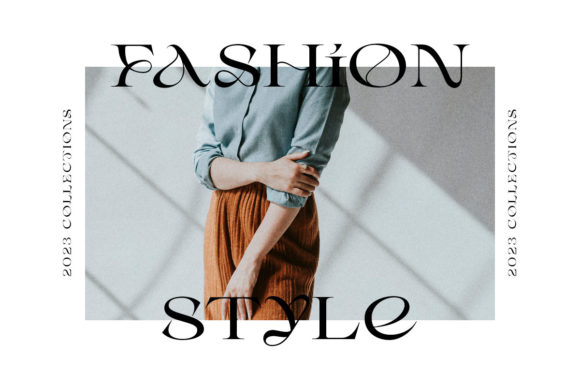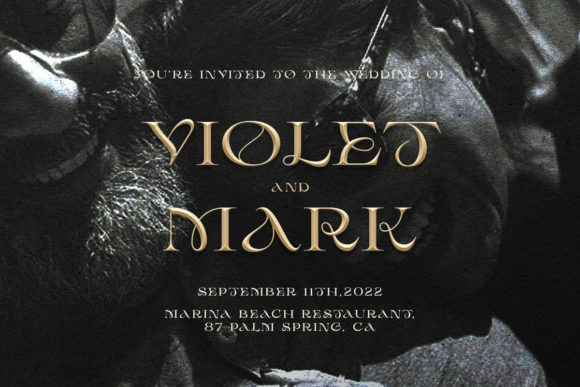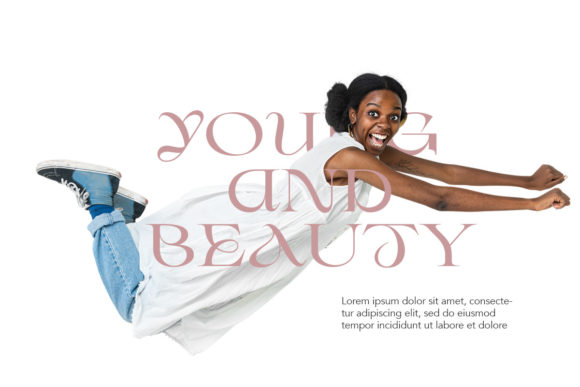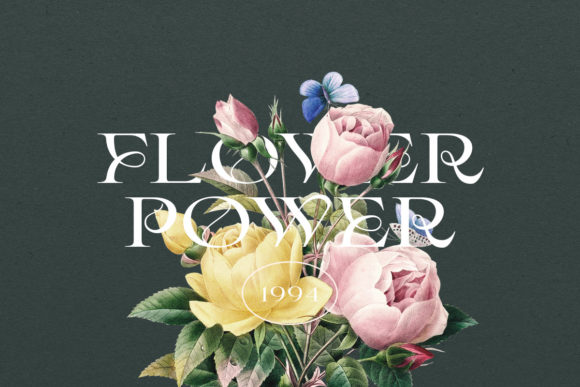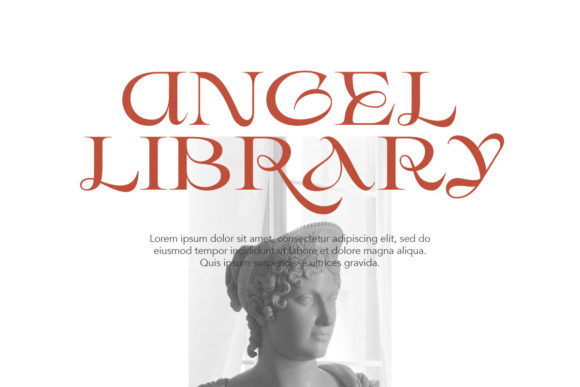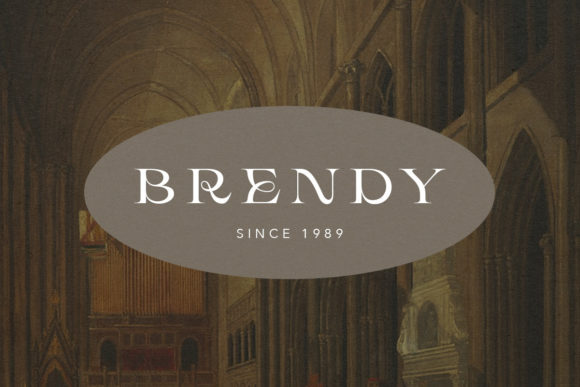
Introducing Desira Font: The Ultimate Choice for Eye-Catching Designs
In the world of typography, fonts play a crucial role in making or breaking a design. A perfect font can elevate your brand’s visual identity, making it more recognizable and memorable. If you’re a designer, craftsperson, or simply someone who loves to dabble in creative projects, you’re in luck! Today, we’re excited to introduce you to Desira Font, a wavy and trendy serif font that’s sure to take your designs to the next level.
What is Desira Font?
Desira is a beautifully crafted serif font that boasts a unique, wavy design. Its distinctive style makes it an excellent choice for creating eye-catching logos, branding materials, and quotes. What sets Desira apart from other fonts is its attention to detail – every letter has a unique and beautiful touch that will make your design come alive!
Key Features of Desira Font
• Wavy and Trendy Design: Desira’s wavy lines give it a modern and trendy feel that’s perfect for designs that require a bit of flair.
• Serif Font: The serif style of Desira adds a touch of sophistication and elegance, making it suitable for a wide range of design projects.
• Unique Letterforms: Each letter in the Desira font has been carefully crafted to have its own unique character, ensuring that your designs stand out from the crowd.
• Ease of Use: Desira is designed to be user-friendly, making it easy to incorporate into your projects, whether you’re a seasoned designer or just starting out.
Whether you’re a professional designer or a crafty DIY enthusiast, Desira Font is an excellent addition to your toolkit. Here are just a few ways you can use Desira to elevate your designs:
• Logo Design: Create memorable and impactful logos that capture the essence of your brand.
• Branding Materials: Use Desira to create consistent and recognizable branding across all your materials, from business cards to billboards.
• Quote and Social Media Graphics: Add a touch of personality to your quotes and social media graphics, making them more engaging and shareable.
• Crafting Projects: Add a professional touch to your crafting projects, such as handmade cards, invitations, and more.
Why Choose Desira Font?
With so many fonts available, why choose Desira? Here are a few compelling reasons:
• Unique Style: Desira’s wavy serif design is unlike any other font on the market, ensuring your designs stand out.
• Versatility: From logos to social media graphics, Desira can be used for a wide range of design projects.
• Easy to Read: Despite its unique style, Desira remains highly legible, making it perfect for both digital and print designs.
Desira Font is a game-changer for designers and crafters looking to add a touch of elegance and personality to their projects. Its unique, wavy serif design, combined with its versatility and ease of use, makes it an excellent choice for anyone looking to create eye-catching logos, branding materials, and more. So why wait? Give Desira Font a try today and see the difference it can make in your designs!
In conclusion, Desira Font is more than just a font – it’s a design statement. With its wavy lines, unique letterforms, and elegant serif style, it’s the perfect tool for anyone looking to add a bit of flair to their designs. So go ahead, unleash your creativity, and let Desira Font guide you in creating visually stunning projects that leave a lasting impression.